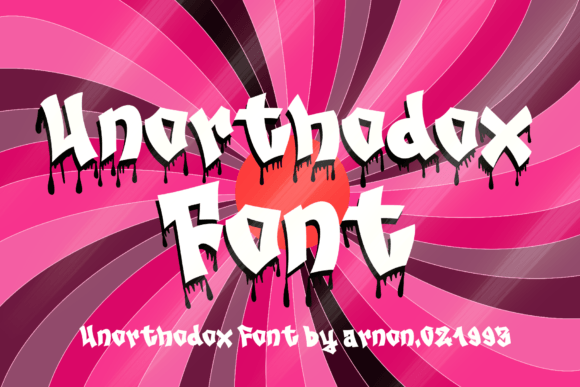
Discover Unorthodox Font, the delightful display font that injects a touch of playfulness into your designs. Its charming and cheerful vibe is perfect for adding a unique touch to any project. Picture this font gracing your wedding banners, its whimsical curves and dynamic strokes creating an atmosphere of joy and celebration.
Unorthodox Font is a true gem for creating eye-catching posters, captivating book covers, and playful brand names. Its versatility extends to children's games, where its friendly characters bring life to imaginary worlds. Quotes and titles take on a new level of expression with this font, as its unique style adds emphasis and personality.
With Unorthodox Font, your creativity knows no bounds. Its diverse range of applications makes it a must-have for designers seeking to add a touch of whimsy and cheer to their work. Unleash your imagination and let Unorthodox Font transform your designs into captivating masterpieces.